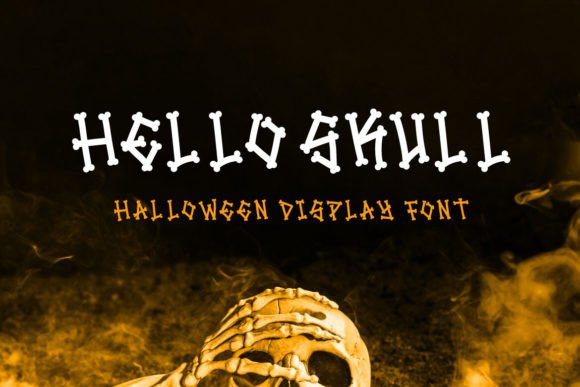
Prepare yourself for a spine-chilling adventure into the realm of darkness and intrigue with Hello Skull Font, a tantalizing display font that will cast a spell on your designs. Crafted with the essence of Halloween, this font family is more than just a collection of characters - it's a gateway to a world of eerie elegance and mysterious charm.
Step into the realm of Hello Skull, where each letter dances with a haunting grace, evoking images of shadowy figures and forgotten tales. Embrace the spirit of All Hallows' Eve as you let this font guide your creative vision, transforming ordinary words into extraordinary works of art.
Hello Skull is a versatile font family, capable of casting its spell across a vast range of design projects. Its haunting beauty lends itself perfectly to comic books, posters, and flyers, adding a touch of the macabre to any message. Book titles and advertisements will leap off the page, capturing the attention of readers with its captivating allure.
Unleash the power of Hello Skull on social media, where your content will bewitch followers with its mesmerizing charm. Craft logos that exude an aura of mystery, leaving a lasting impression in the minds of your audience. Let Hello Skull be your muse, as you create captivating graphics and designs that resonate with the darkest corners of the human psyche.
But Hello Skull's allure extends beyond the digital realm. Its ghostly presence can be felt in the physical world as well. Print this font onto cards and invitations, and watch as your messages take on a life of their own. Create haunting signs and posters that will send shivers down the spines of passersby. The possibilities are endless, just as the depths of darkness itself.